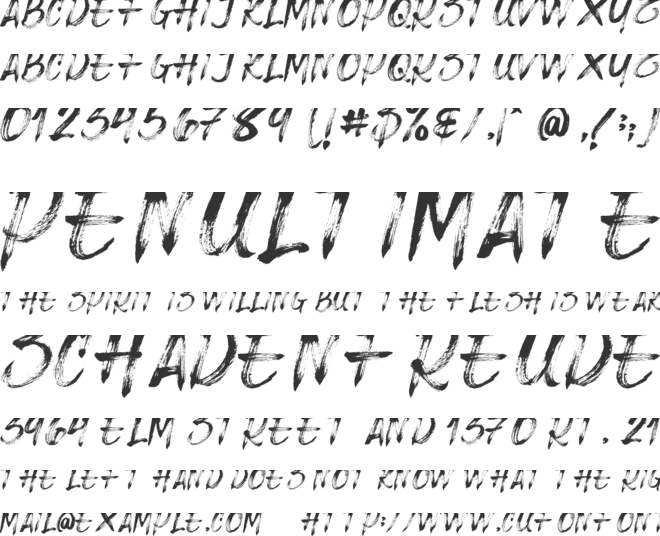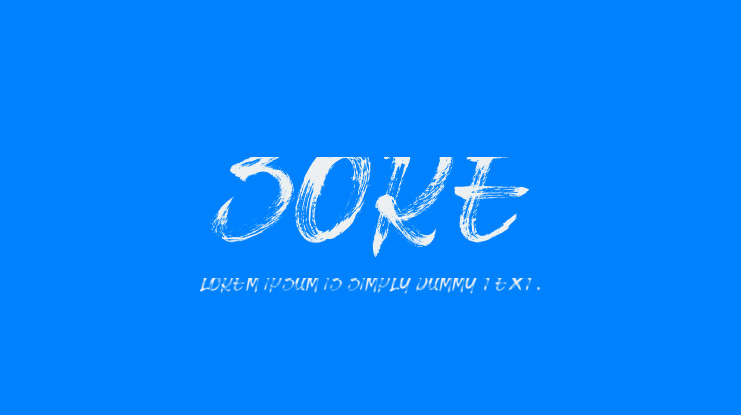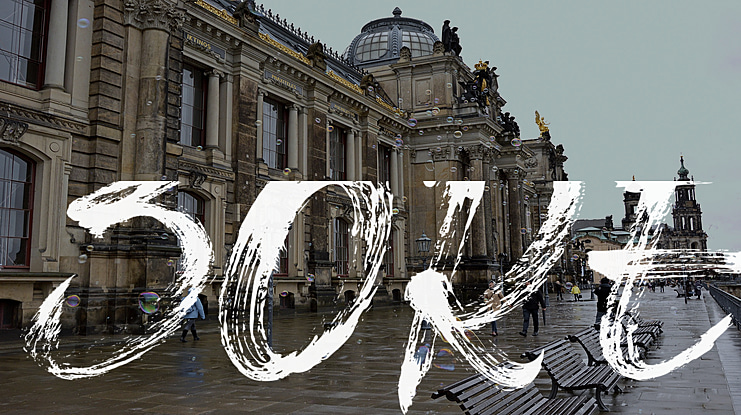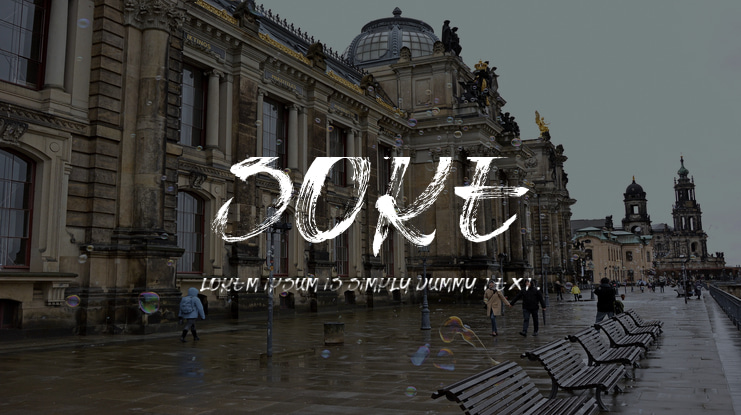
SORE! An authentic brush font with 2 styles, regular and slant. SORE font is suitable for branding, logotype, apparel, T-shirt, Hoodie, product packaging, quotes, flyer, poster, advertising, etc.
1. Uppercase and lowercase characters
2. Multilingual support.
3. Numerals, punctuations, alternate, and ligatures